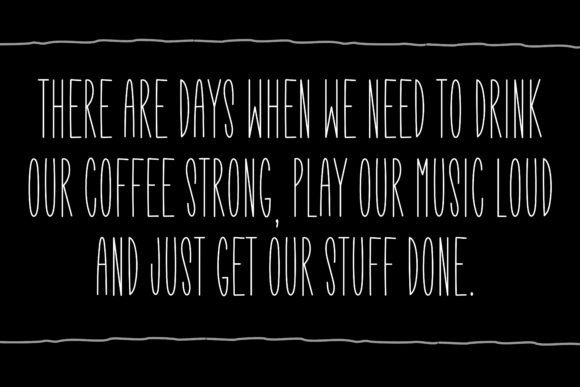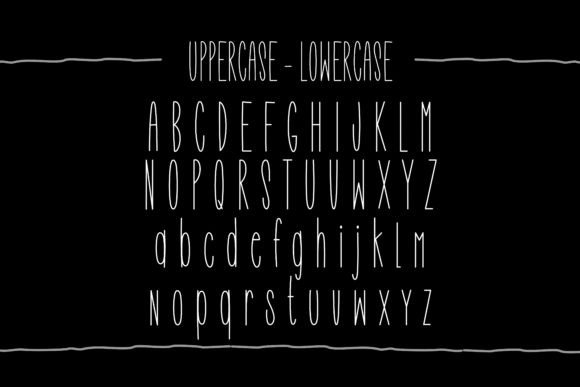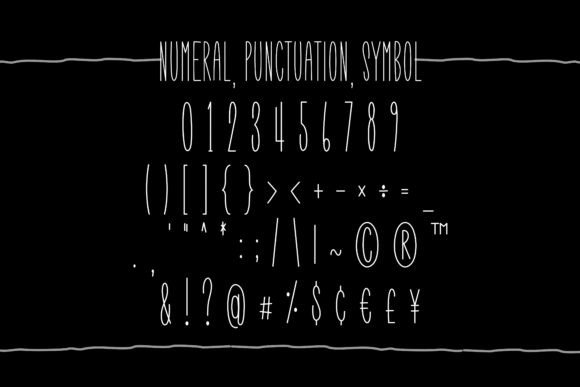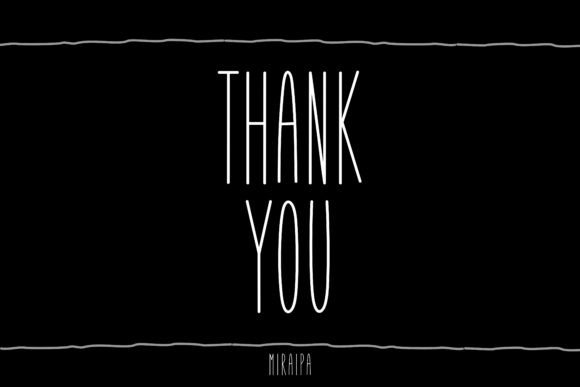
Introducing Advanced Font: The Cute and Friendly Handwritten Sans Serif Font
Are you tired of using the same old fonts in your design projects? Look no further! Advanced Font is a unique and charming handwritten sans serif font that is sure to bring a friendly touch to any design. In this article, we’ll explore the features and benefits of Advanced Font, and show you how it can elevate your DIY projects, from planners and posters to social media posts and greeting cards.
What is Advanced Font?
Advanced Font is a carefully crafted handwritten sans serif font that exudes a sense of cuteness and friendliness. Its playful and approachable style makes it perfect for designs that require a personal touch. Whether you’re working on a project for kids or adults, Advanced Font is sure to delight your audience.
Features of Advanced Font
- Handwritten sans serif font style: Advanced Font boasts a unique handwritten sans serif font style that sets it apart from other fonts.
- Cute and friendly: The font’s playful and approachable style makes it perfect for designs that require a friendly touch.
- Versatile: Advanced Font can be used for a wide range of design projects, from planners and posters to social media posts and greeting cards.
Use Cases for Advanced Font
Advanced Font is an incredibly versatile font that can be used for various design projects. Here are some ideas to get you started:
- Easter and Spring designs: Use Advanced Font to create adorable Easter egg designs, Spring-themed posters, or cute party invitations.
- Back to School: Create eye-catching posters, flyers, or social media posts for the new school year with Advanced Font.
- Weddings and parties: Add a personal touch to your wedding or party decorations, invitations, and social media posts with Advanced Font.
- Fall and Halloween designs: Use Advanced Font to create spooky yet cute designs for Fall and Halloween, such as pumpkin carvings, Halloween costumes, or Fall-themed posters.
- Christmas and holiday designs: Create festive and fun designs for Christmas, such as holiday cards, posters, or social media posts.
- Blogs and social media posts: Use Advanced Font to add a friendly touch to your blog posts or social media updates.
- Clothing and child-related designs: Create adorable designs for kids’ clothing, nursery decor, or child-related products with Advanced Font.
- Greeting cards and invitations: Use Advanced Font to create personalized greeting cards, invitations, or party decorations.
Why Choose Advanced Font?
With so many fonts available, why choose Advanced Font? Here are a few reasons:
- Unique and eye-catching: Advanced Font is a one-of-a-kind font that will make your designs stand out.
- Easy to read: The font’s clear and clean design makes it easy to read, even at small sizes.
- Versatile: Advanced Font can be used for a wide range of design projects, making it a great addition to your font library.
- Advanced Font is a unique and charming handwritten sans serif font.
- The font is perfect for designs that require a friendly touch.
- Advanced Font can be used for a wide range of design projects.
- The font is easy to read and versatile.